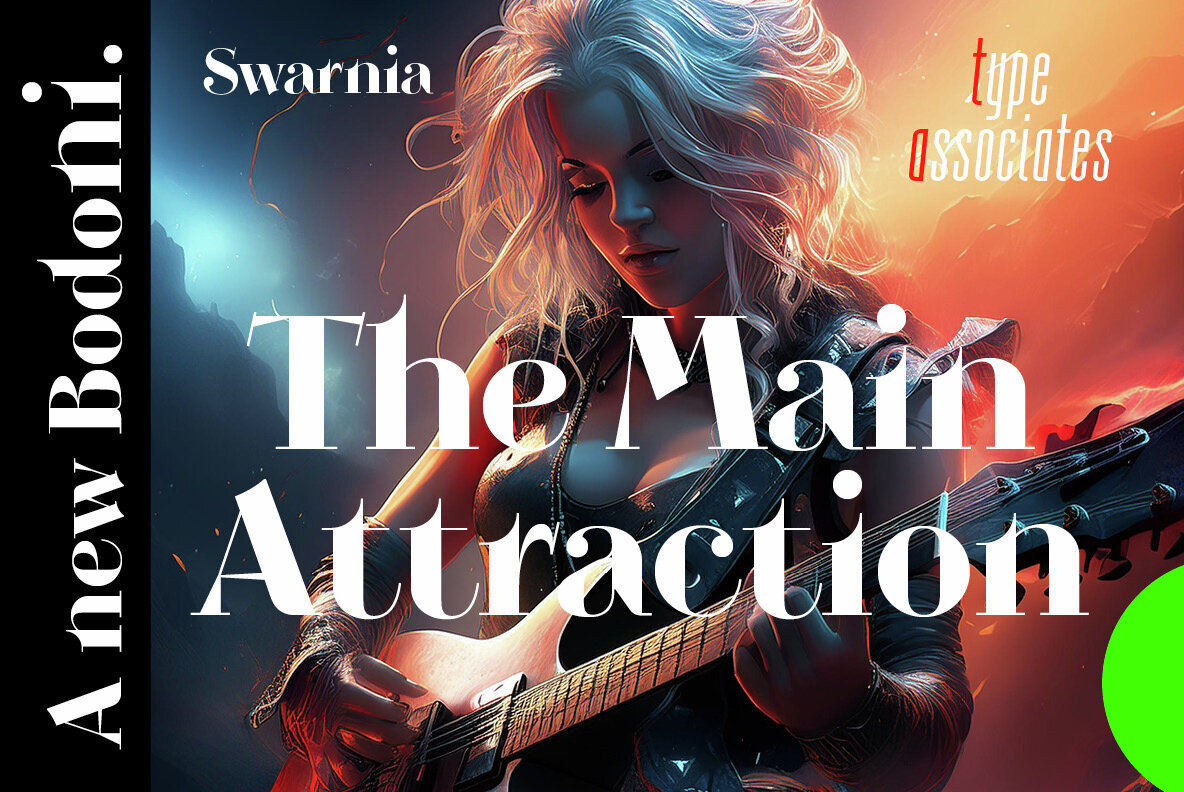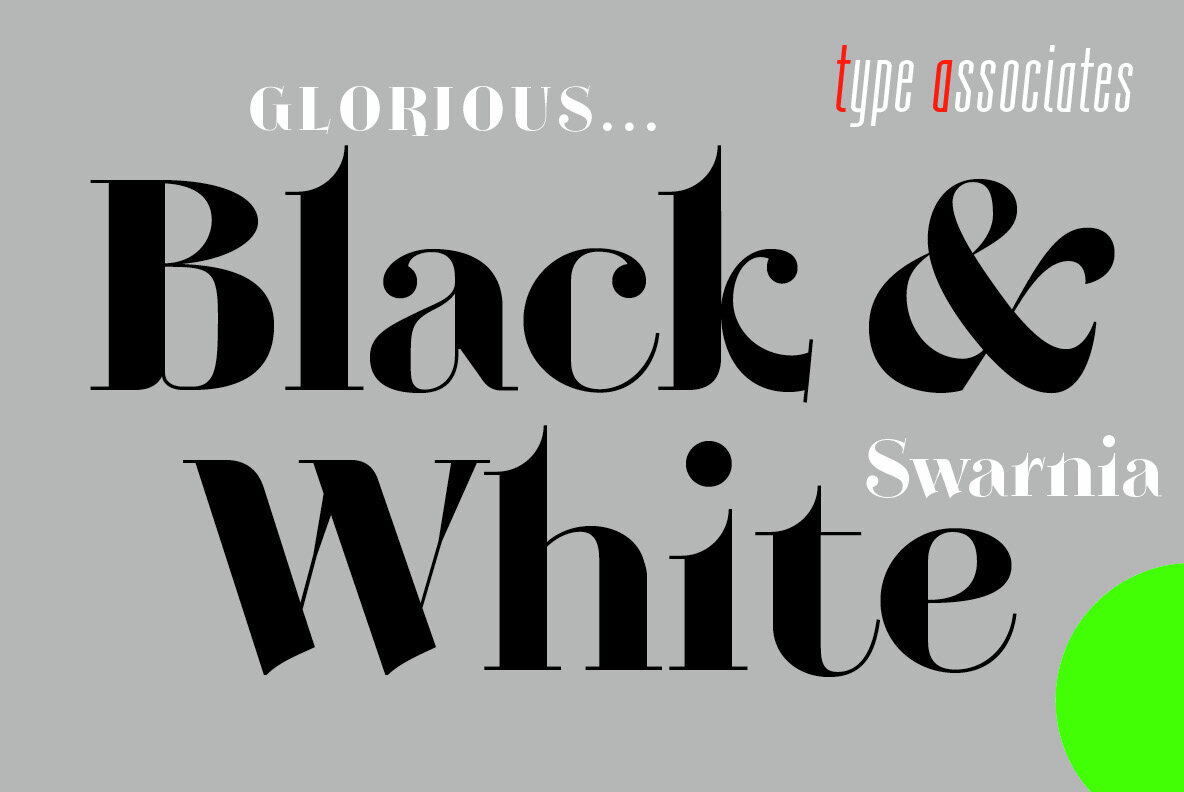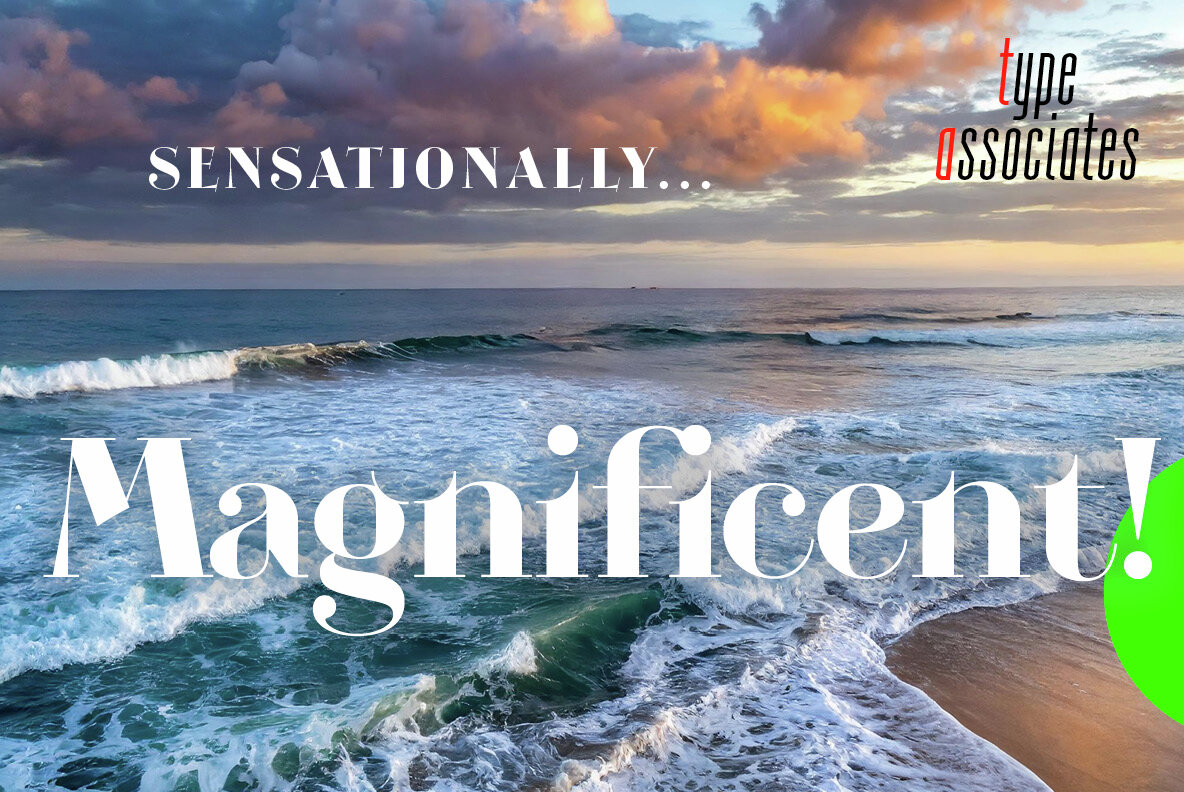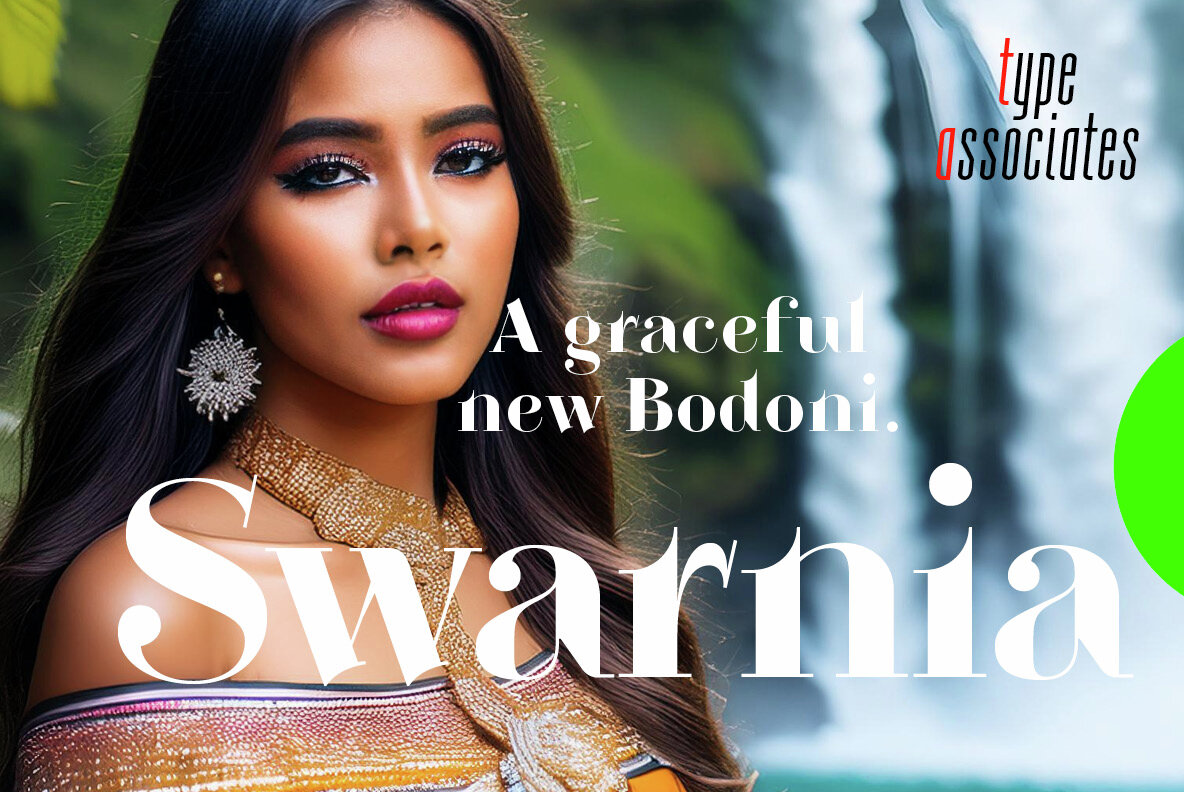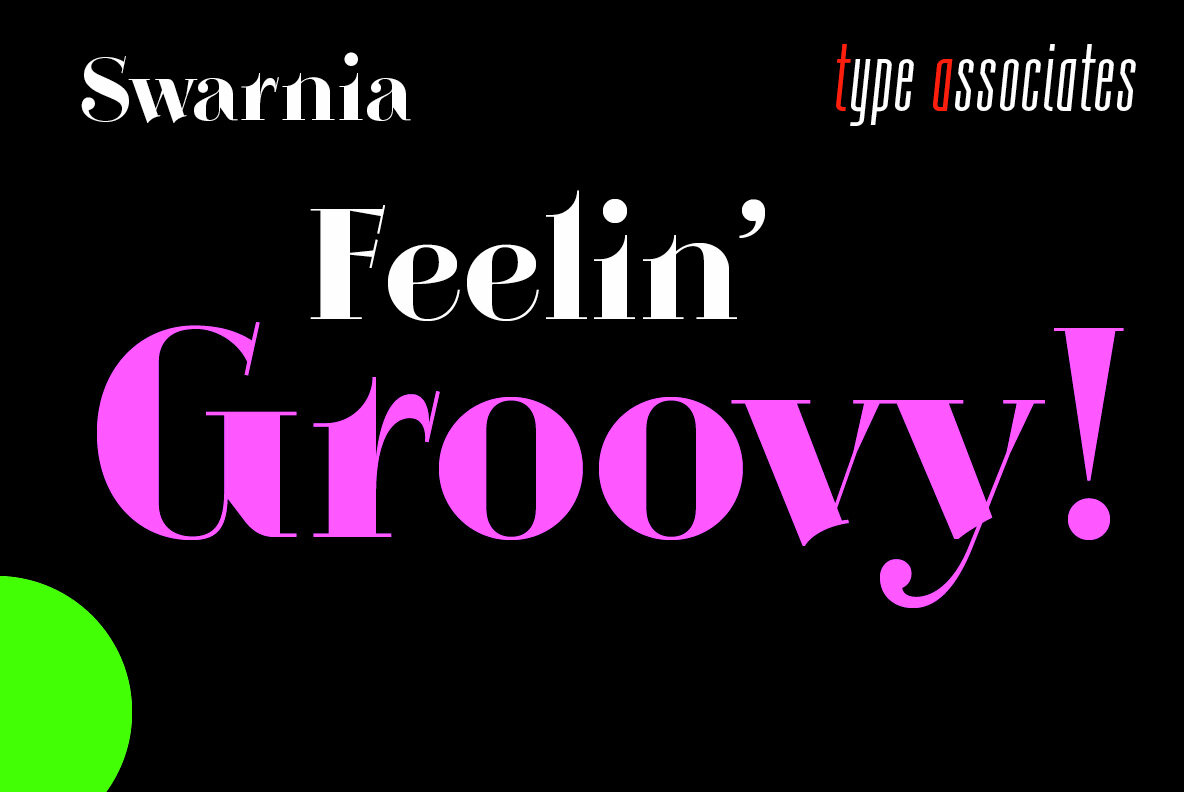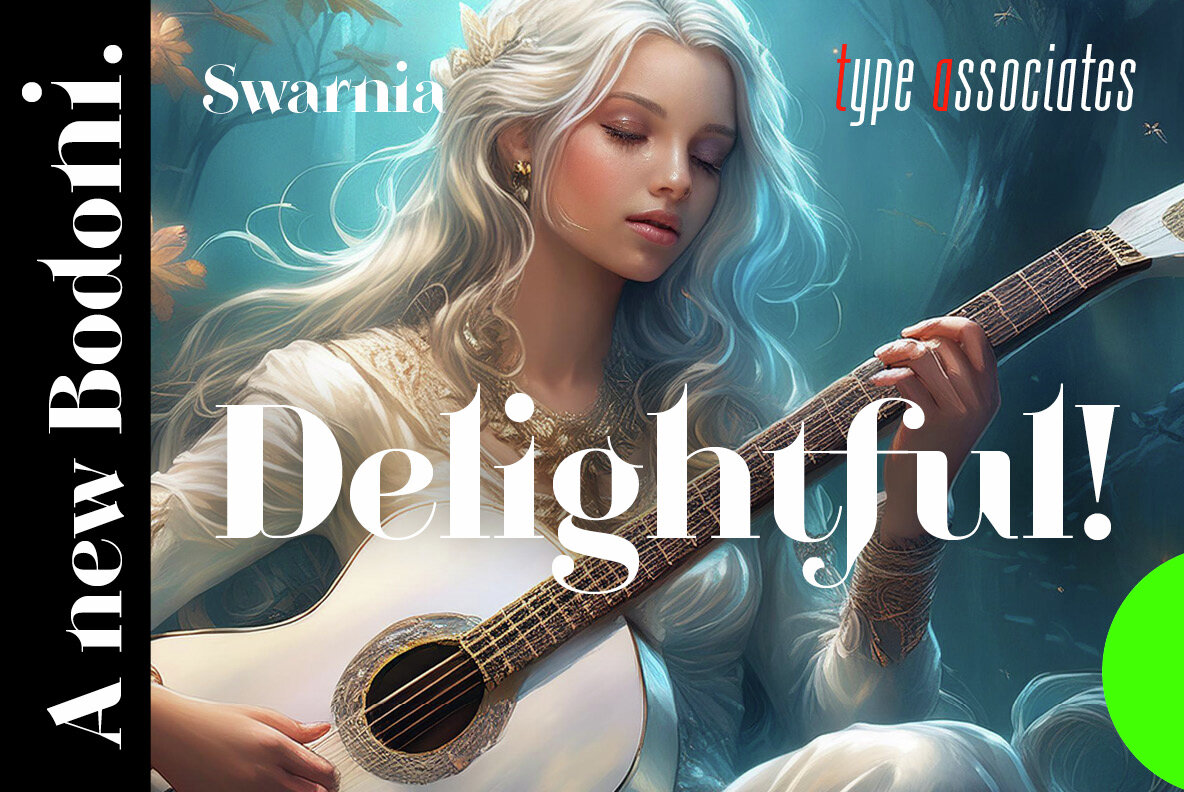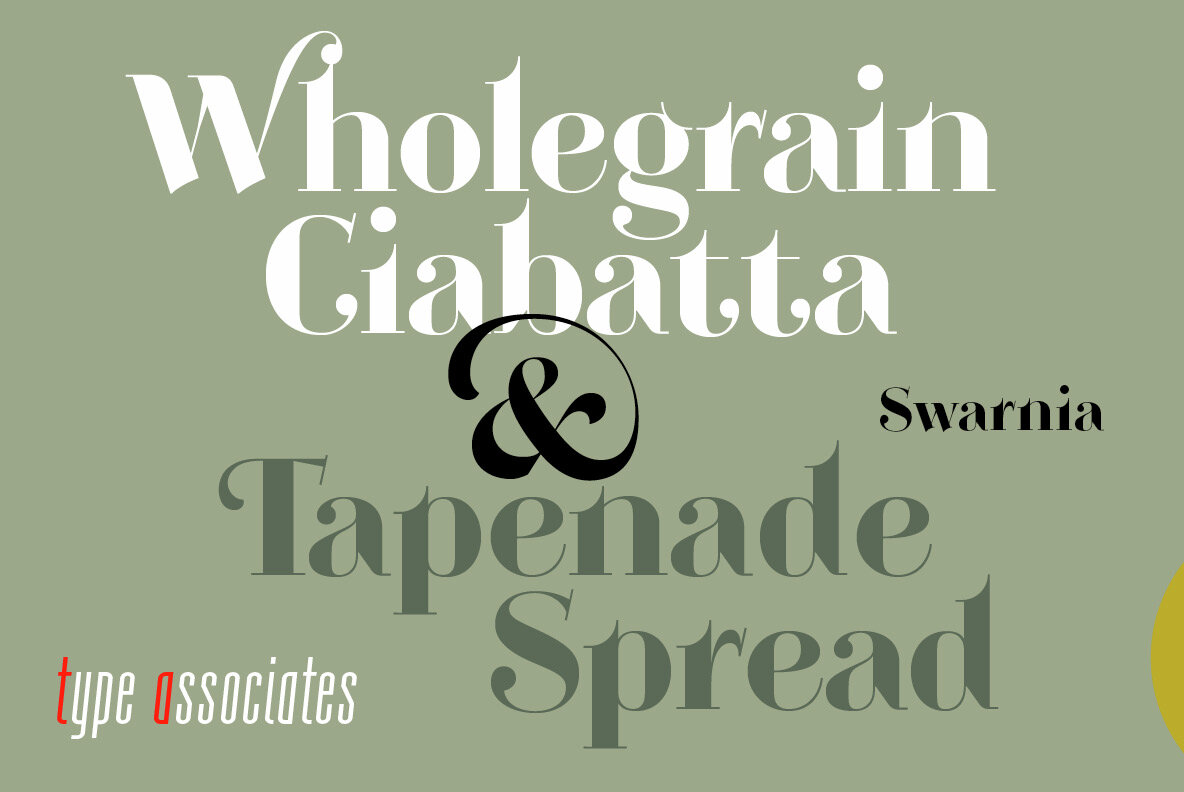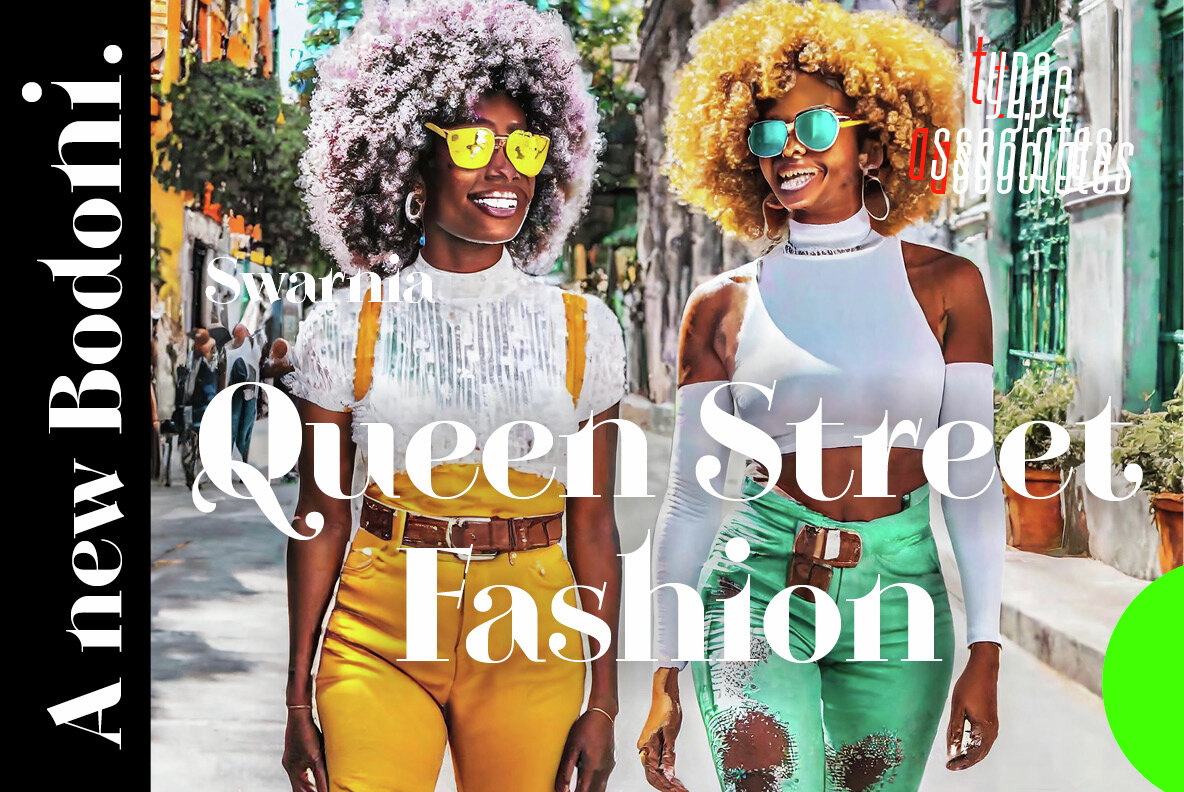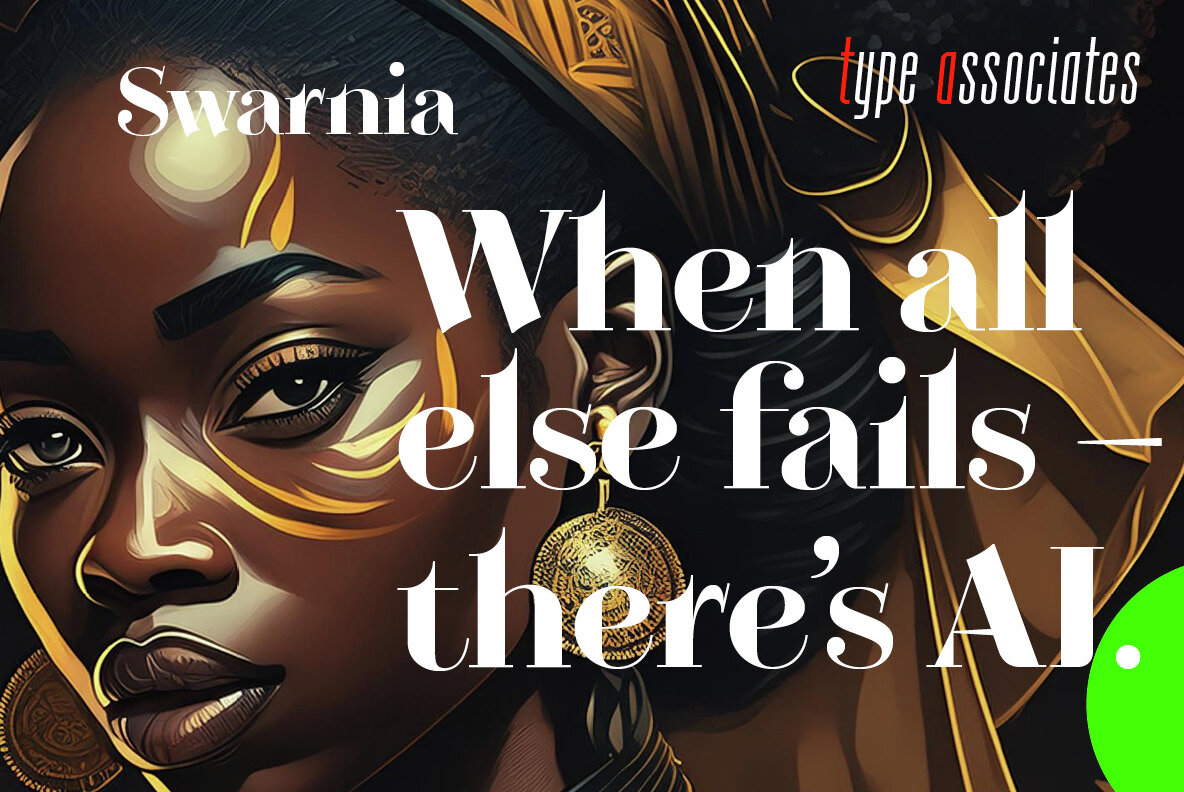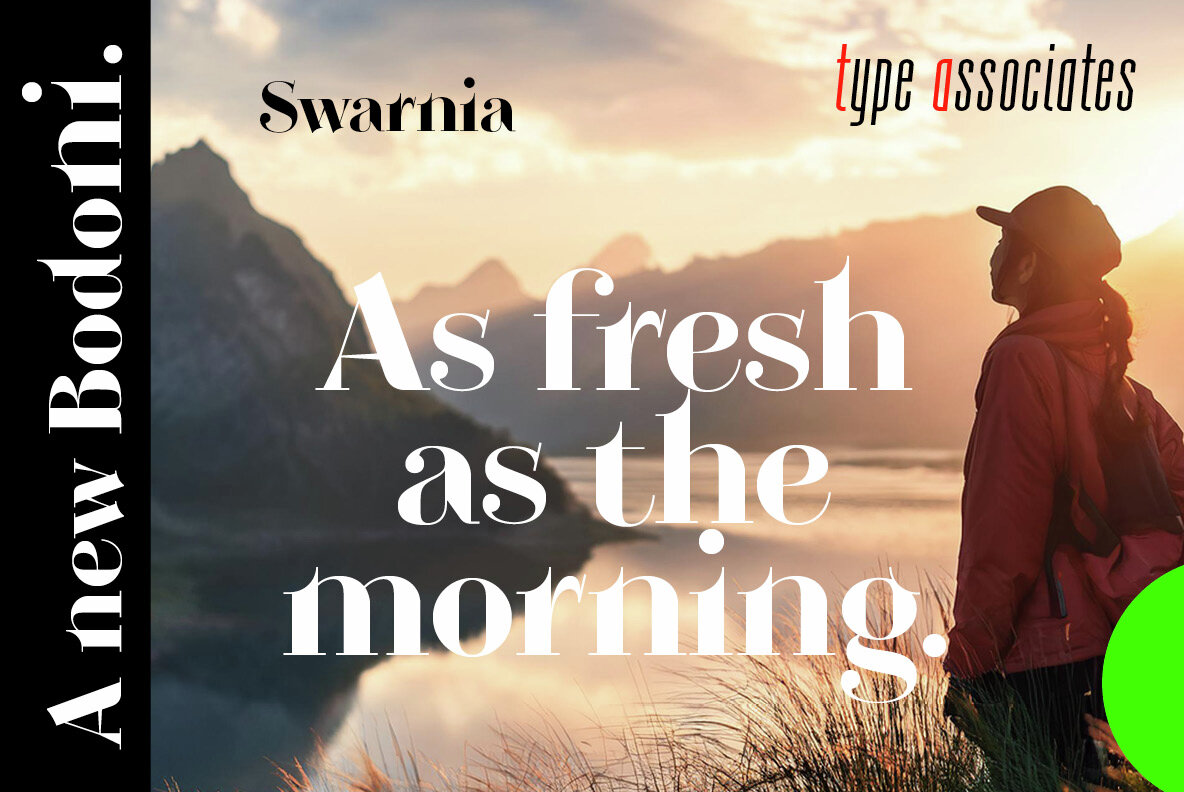
Swarnia Font
Swarnia Regular
Swarnia draws its inspiration from the high-contrast serif typefaces of the eighteenth and early-nineteenth centuries, such as Bodoni and Didone. Embracing a modern twist, Swarnia is meticulously spaced for larger sizes, making it ideal for logos and display-size headings. Its design exudes a sense of neatness, tidiness, and well-groomed elegance, much like the French term "soigné" from which it derives its identity.
Swarnia's sophisticated personality communicates value, quality, and a striking flair. This typeface is perfect for projects requiring an element of panache and flamboyance, providing an impressive visual impact. Whether used in branding or high-end editorial designs, Swarnia delivers a timeless aesthetic that commands attention while maintaining a refined appeal. Capture the essence of grandeur with this exquisite serif typeface.